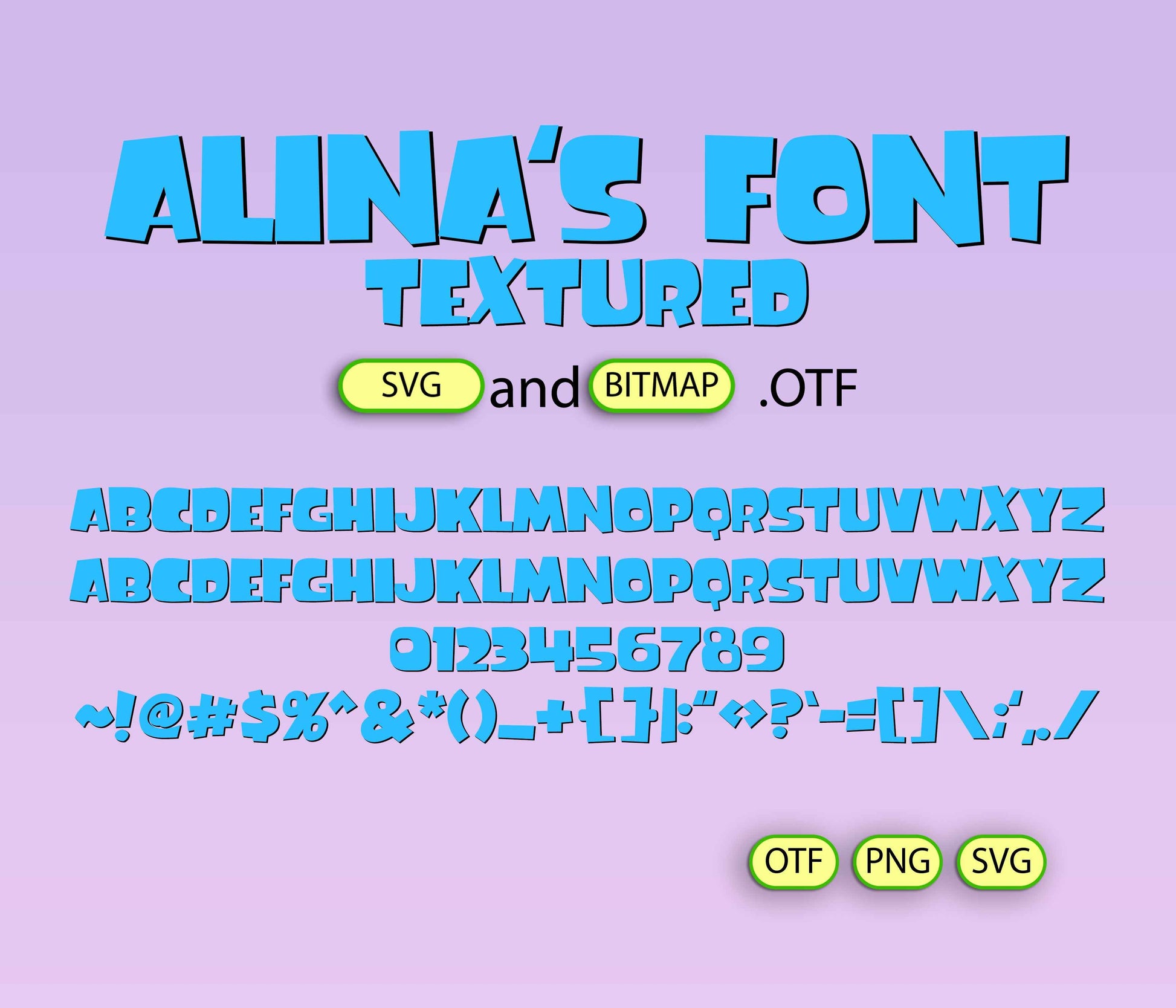
Prehistoric Chill Font Textured
Prehistoric Chill Font
Step into the frosty world of ancient adventures with our Prehistoric Chill font. This playful typeface captures the essence of mammoths, saber-toothed cats, and unlikely animal friendships during Earth's coolest era. Perfect for projects that aim to blend prehistoric charm with icy fun.
Our Prehistoric Chill font features bold, slightly cracked characters that evoke the look of letters carved in ice, with a touch of cartoon whimsy. Ideal for:
1. Animated Features: Create eye-catching titles and credits for family-friendly prehistoric adventures
2. Educational Materials: Enhance learning resources about the Ice Age and ancient animals
3. Museum Exhibits: Design engaging signage for displays on prehistoric life
4. Digital Media: Craft playful headers and graphics for websites and social media about paleontology or animation
5. Children's Literature: Design captivating covers for books about prehistoric animals and their adventures
6. Theme Park Attractions: Develop signage for rides and experiences centered on ice age themes
7. Merchandise: Produce t-shirts, posters, and accessories featuring lovable prehistoric characters
Whether you're crafting promotional materials for a paleontology exhibit, designing merchandise for fans of animated prehistoric adventures, or adding a touch of icy charm to personal projects, this font communicates the fun and wonder of the Ice Age era. Ready to bring the spirit of woolly mammoths and prehistoric pals to your creations? This font is your key to engaging, glacial design.